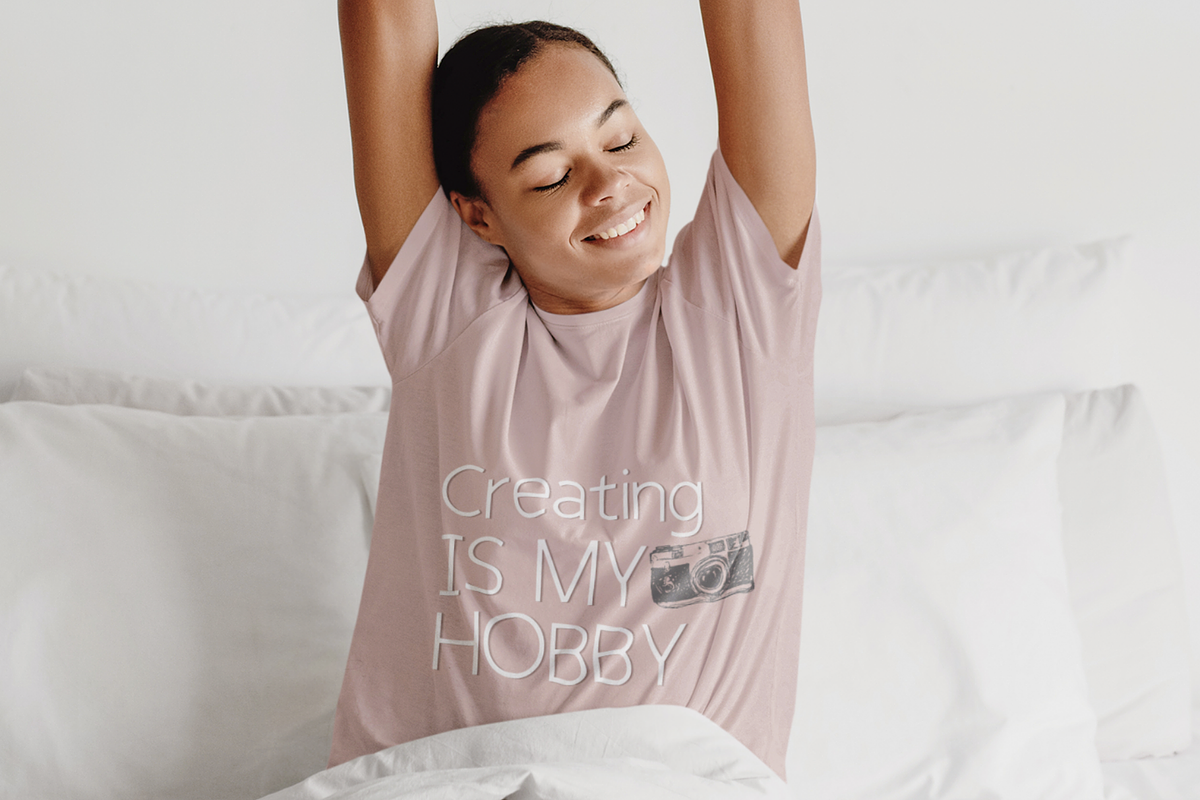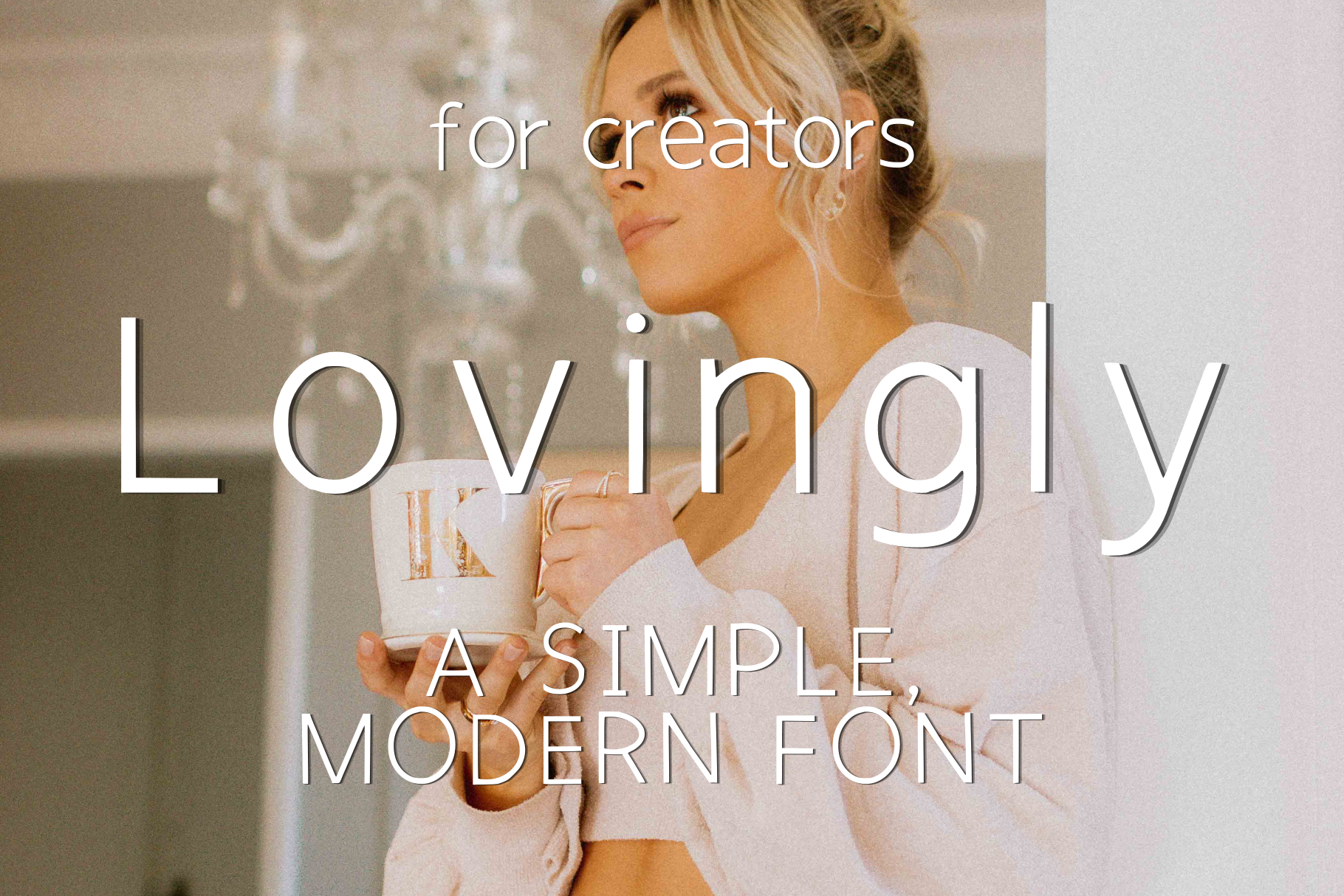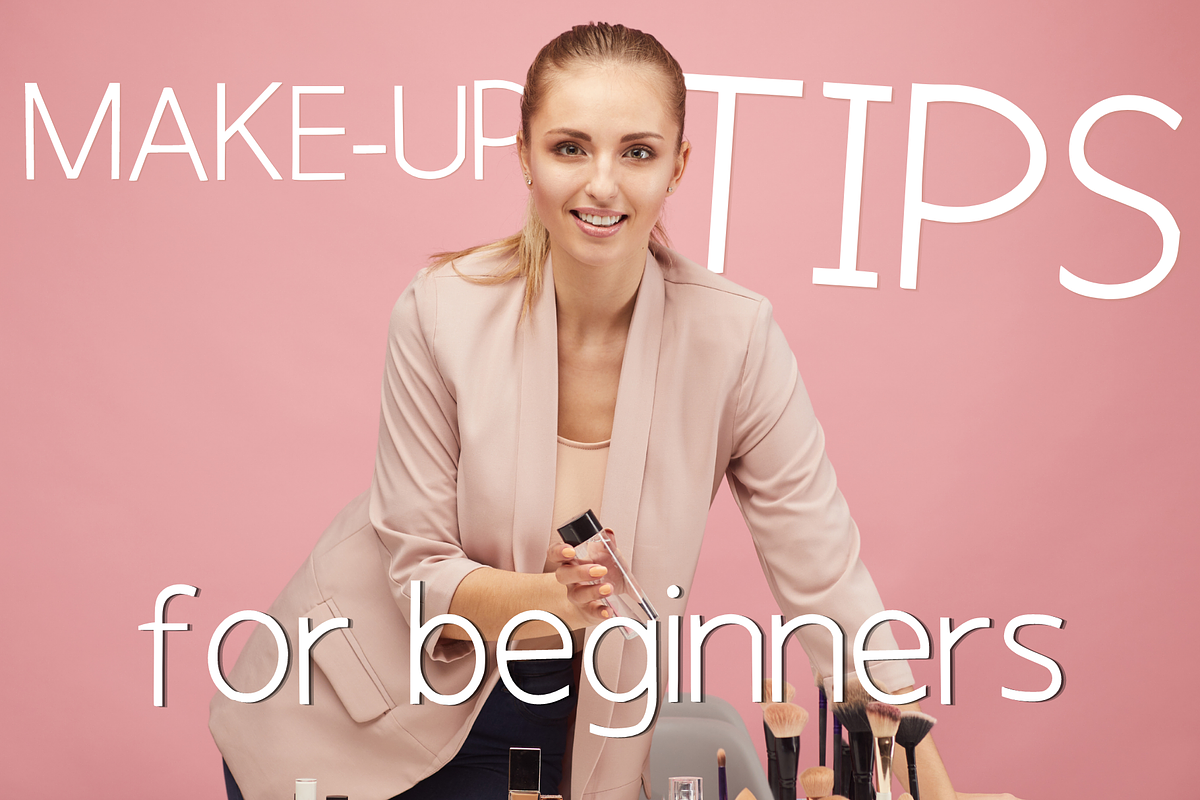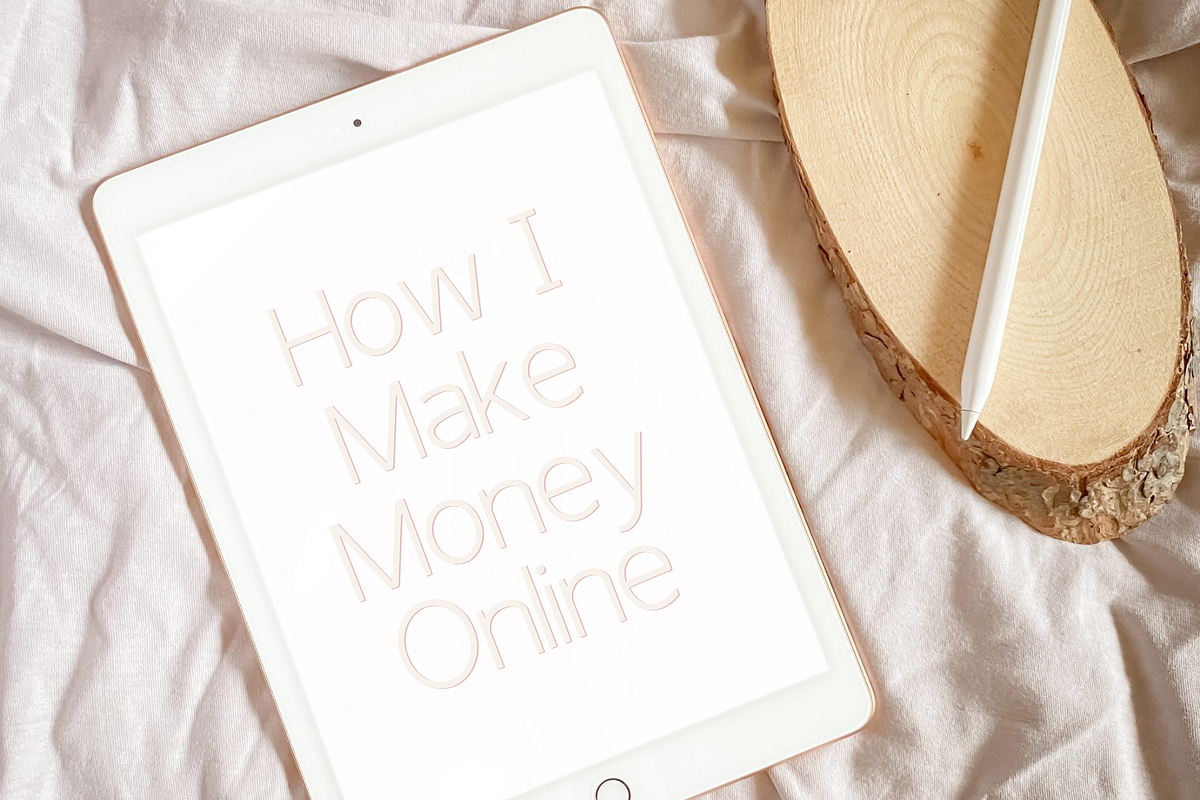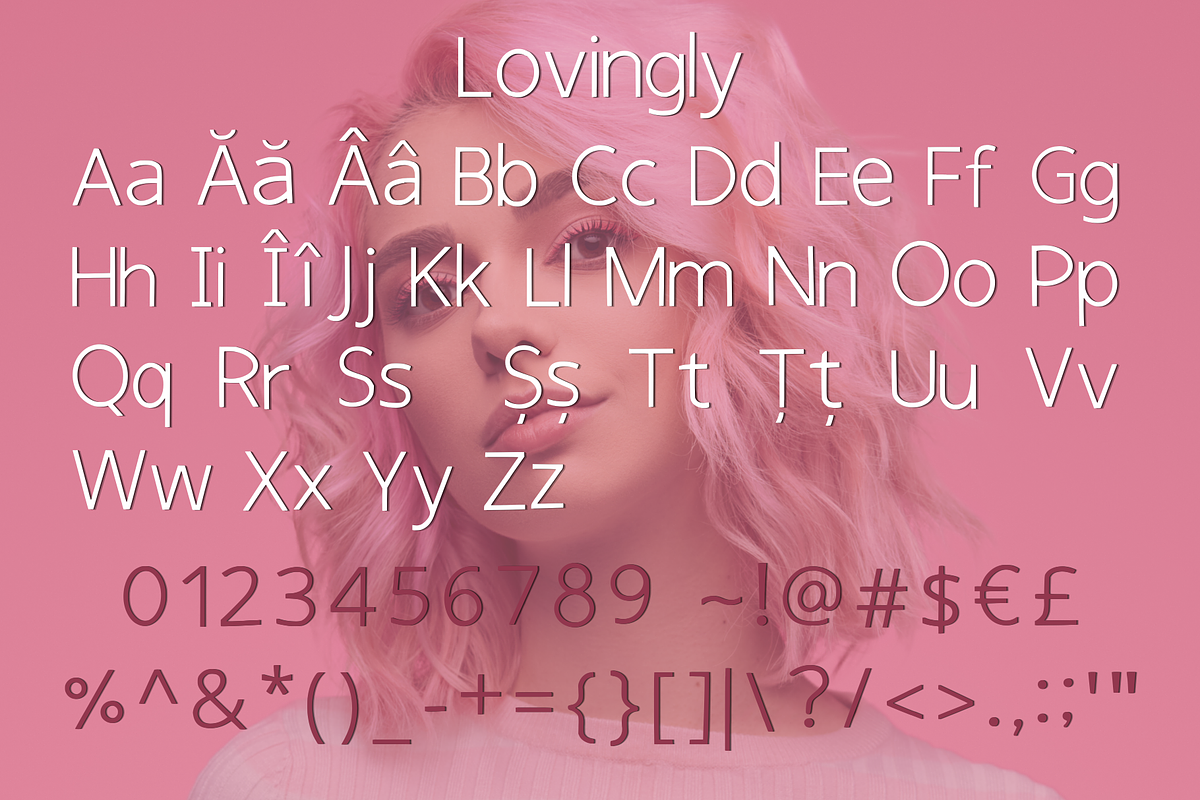
Lovingly - A Simple, Modern Font
This font is perfect for Online Creators that are looking for the best font to use in their Daily Projects, Designs, or Custom Work.